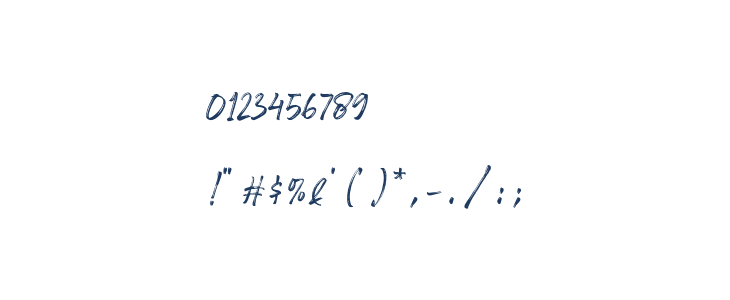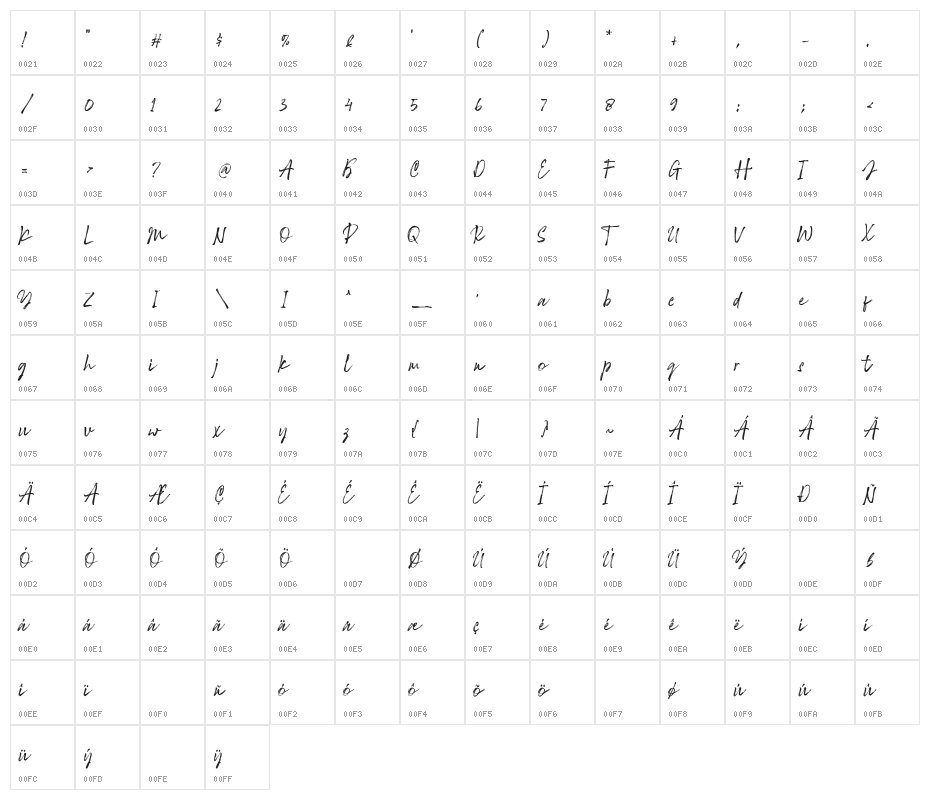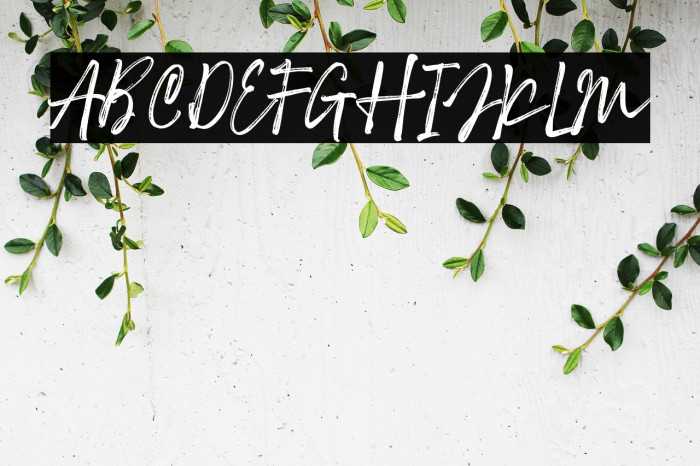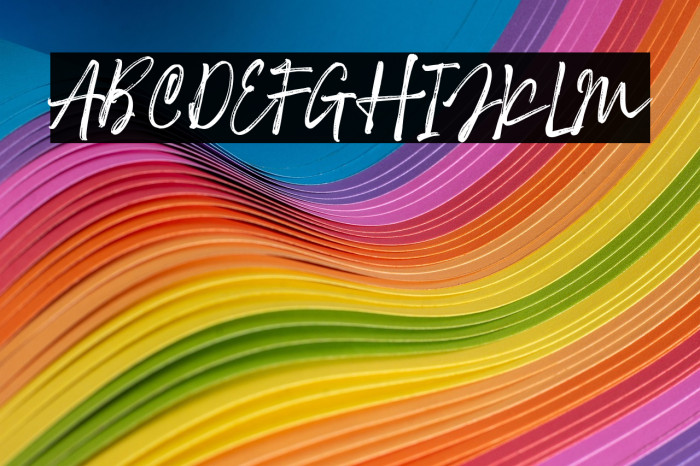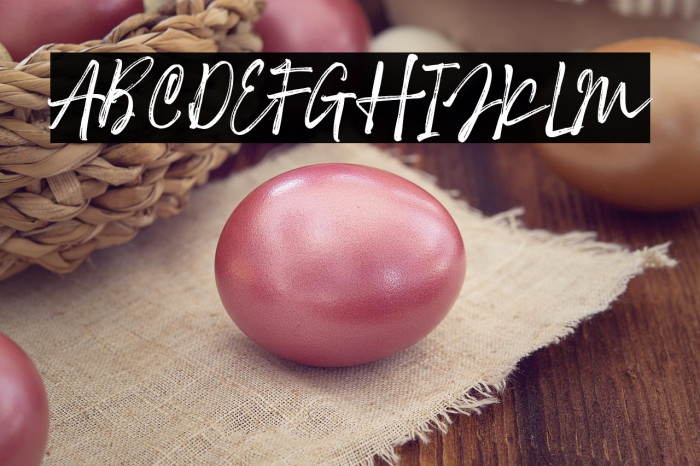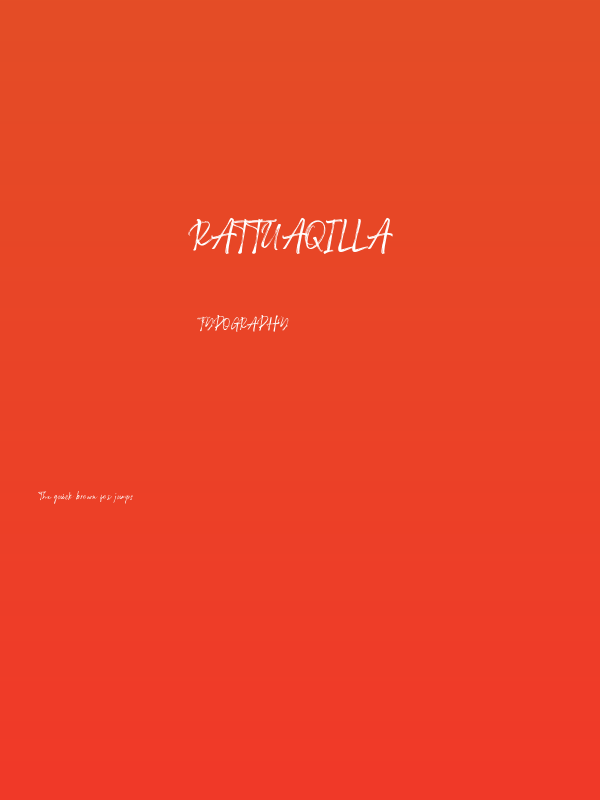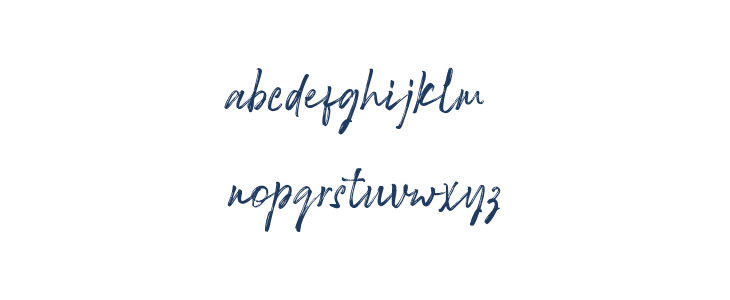
RattuAqilla Font
RattuAqilla Description
This font exudes a lively and expressive character, reminiscent of handwritten script with a modern twist. The letters are fluid and dynamic, with a natural flow that mimics the strokes of a brush or pen. The uppercase letters stand tall and confident, while the lowercase letters maintain a consistent rhythm, creating a harmonious balance. The numbers and special characters are crafted with the same attention to detail, ensuring a cohesive look across all elements. The overall style is both elegant and casual, making it versatile for various design needs.